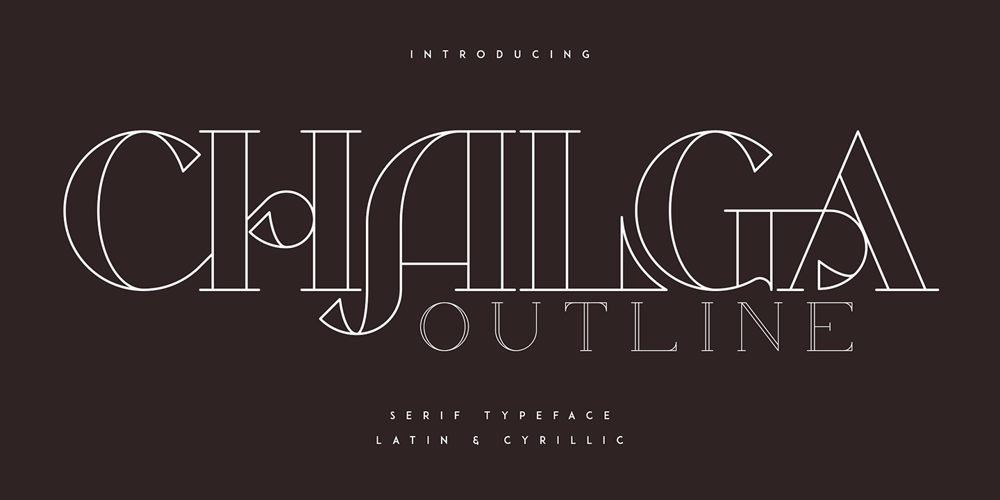
Chalga VPoutline
Chalga VPoutline font
Chalga VPoutline Font Family was designed by Vladimir Fedotov, Plamen Petrov and published by VP Creative Shop. Chalga VPoutline contains 3 styles and family package options. Introducing Chalga Serif Typeface – 3 weighs – Latin and Cyrillic supportChalga is elegant, vintage typeface that contains 3 weights to enchant your next project. They have basic latin, advanced latin, basic Cyrillic and advanced Cyrillic character sets. Very versatile fonts that works great in large and small sizes.Chalga is perfect for branding projects, home-ware designs, product packaging, magazine headers – or simply as a stylish text overlay to any background image. Uppercase, numeral, punctuation & Symbol Light Regular Bold Basic and advanced latin character sets Basic and advanced Cyrillic character sets Alternate Glyphs Ligature Glyphs Feel free to contact me if you have any questions!Mock ups and backgrounds used are not included.Thank you! Enjoy!